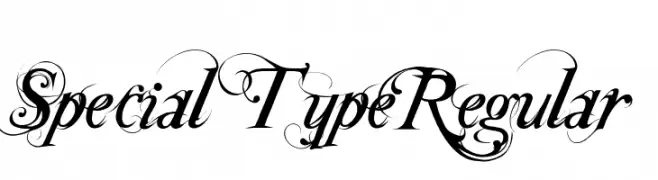
( Fonts by billyargel.blogspot.com - Billy Argel )
A modern, elegant font with thin lines and subtle decorative swirls.
( Fonts by Fizzetica DepokAsiana TypeFoundry - fizzeticatypefoundry.tumblr.com )
A whimsical, decorative font with intricate swirls and curls.
An ornate and decorative script font with intricate swirls and flourishes.
( Fonts by Mario Arturo - www.marioarturo.com )
An elegant and ornate script font with intricate loops and swirls.
( Fonts by Barry Bujol - theoriginal19.blogspot.com )
An ornate and decorative font with intricate swirls and embellishments.
An ornate and decorative font with intricate swirls and flourishes.